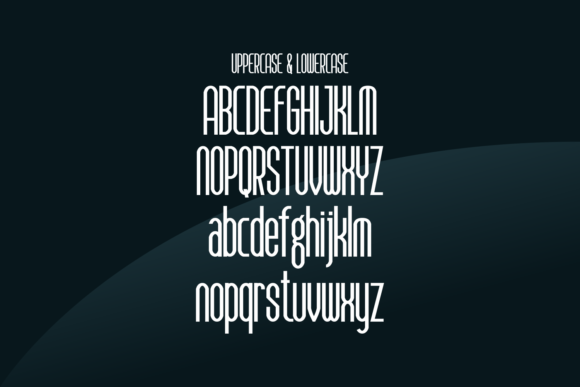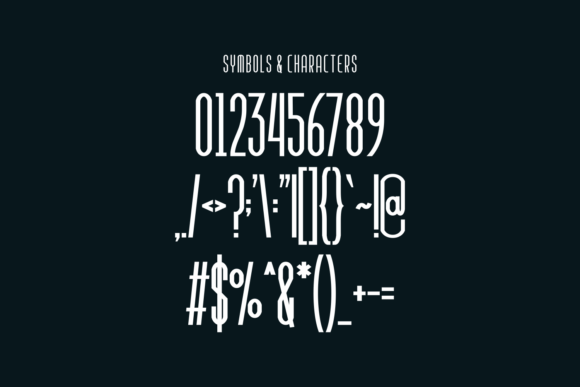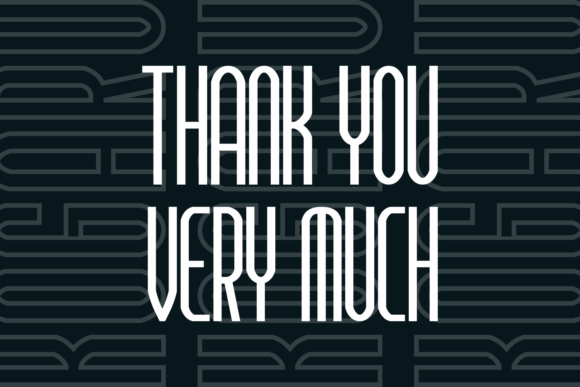
Introduction to Kogaru Font
Kogaru is an incredibly unique and modern display font.
Kogaru is an incredibly unique and modern display font. Masterfully designed to become a true favorite, this font has the potential to bring each of your creative ideas to the highest level
Key Features of Kogaru Font
Why Choose Kogaru Font?
Kogaru Font offers exceptional quality and versatility, making it a valuable addition to your design toolkit. Whether you’re creating for personal projects or commercial use, Kogaru Font delivers professional results.